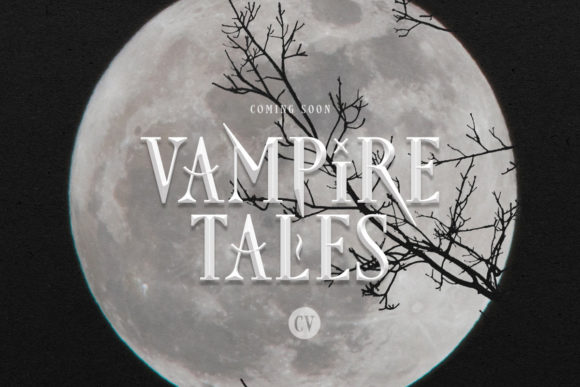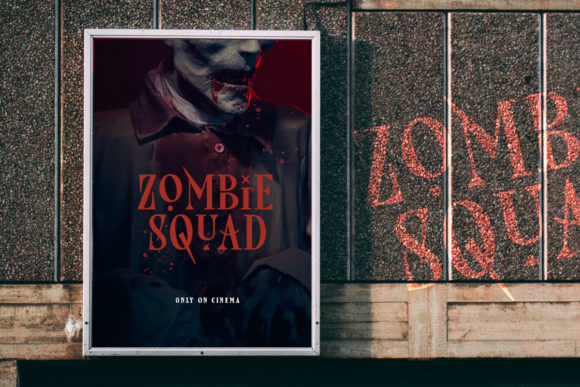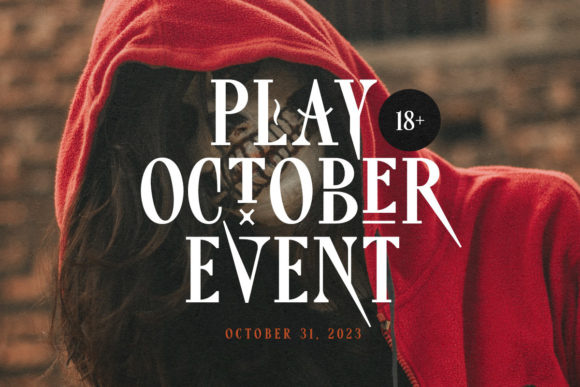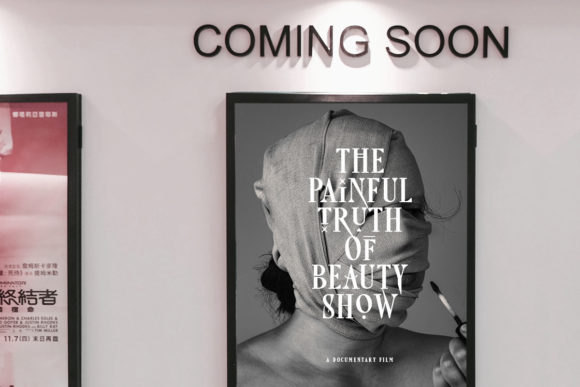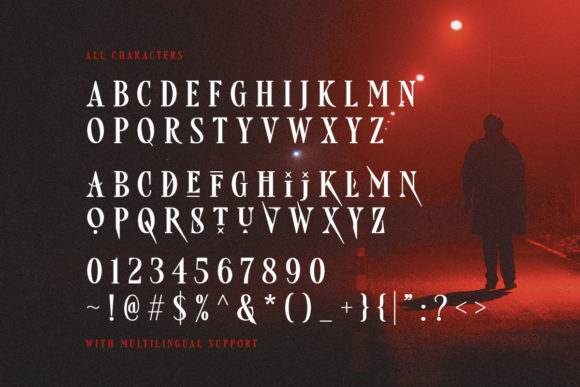
Introduction to Freaky Story Font
Have you ever found yourself scrolling through a design project, desperately searching for the perfect font to bring your creative vision to life? I know I have. That’s exactly what happened when I stumbled upon the Freaky Story Font – a bold, authentic serif font that stole my heart and became an instant favorite.
With its neat and simple style, Freaky Story Font has the potential to elevate any design project, from a high-quality logo to a free downloadable resource for a creative project. Its versatility is unmatched, making it an invaluable addition to any designer’s toolkit. Whether you’re working on a complex design project or just need a reliable font for a quick mockup, Freaky Story Font is sure to impress with its transparent background and high-quality aesthetic.
As a valuable design resource, Freaky Story Font offers a unique blend of style and functionality that’s hard to find in today’s digital landscape. In this article, we’ll dive deeper into the world of Freaky Story Font and explore its many benefits for designers.
Freaky Story Font
- High-quality, unique font design ideal for creative projects and spooky themes.
- Perfect for designers looking for a bold, eerie font to add a touch of freakiness to their designs.
- Great for designers who need a free design resource to create a spooky atmosphere in their creative project.
Honest Review: Freaky Story Font
As a designer, I’m always on the lookout for unique and high-quality design resources to elevate my creative projects. The Freaky Story Font is one such resource that caught my attention, and I’m excited to share my honest review with you.
What works well: ✨ The Freaky Story Font offers a wide range of customization options, allowing me to experiment with different styles and layouts. The font is highly legible, making it perfect for body text and headings alike. Additionally, the transparent background option provides flexibility for overlaying text on images or videos, which is a great feature for multimedia projects.
What could be improved: ⚠️ While the Freaky Story Font is free to download, it’s essential to note that the free version has limited features compared to the paid version. Additionally, some users may find the font’s aesthetic to be too playful or cartoonish for certain projects.
Overall impression: The Freaky Story Font is a great design resource for those looking for a creative and high-quality font for their projects. While it may have some limitations, the free download option and transparent background feature make it an excellent choice for designers.
- Transparent background option for multimedia projects
- Highly legible and customizable
- May be too playful or cartoonish for certain projects
For the best results, use the Freaky Story Font in a creative project where you can showcase its unique design. You can also use it as a free download and incorporate it into your design resource library.
The Freaky Story Font is ideal for horror-themed projects, spooky designs, and creative typography. It’s also a great choice for designers who want to add a touch of whimsy and personality to their work.